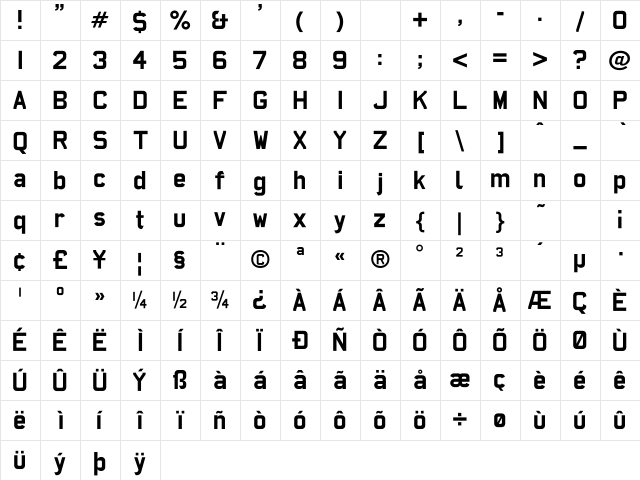
AFCarplates Bold Free Font
Design Context for AFCarplates
AFCarplates is a composed and adaptable typeface that performs quietly and consistently across a wide range of design contexts. Its bold stroke weight gives it real presence on the page.
Pro Tip: Use AFCarplates in both headline and body roles to test its range before committing to a single application.